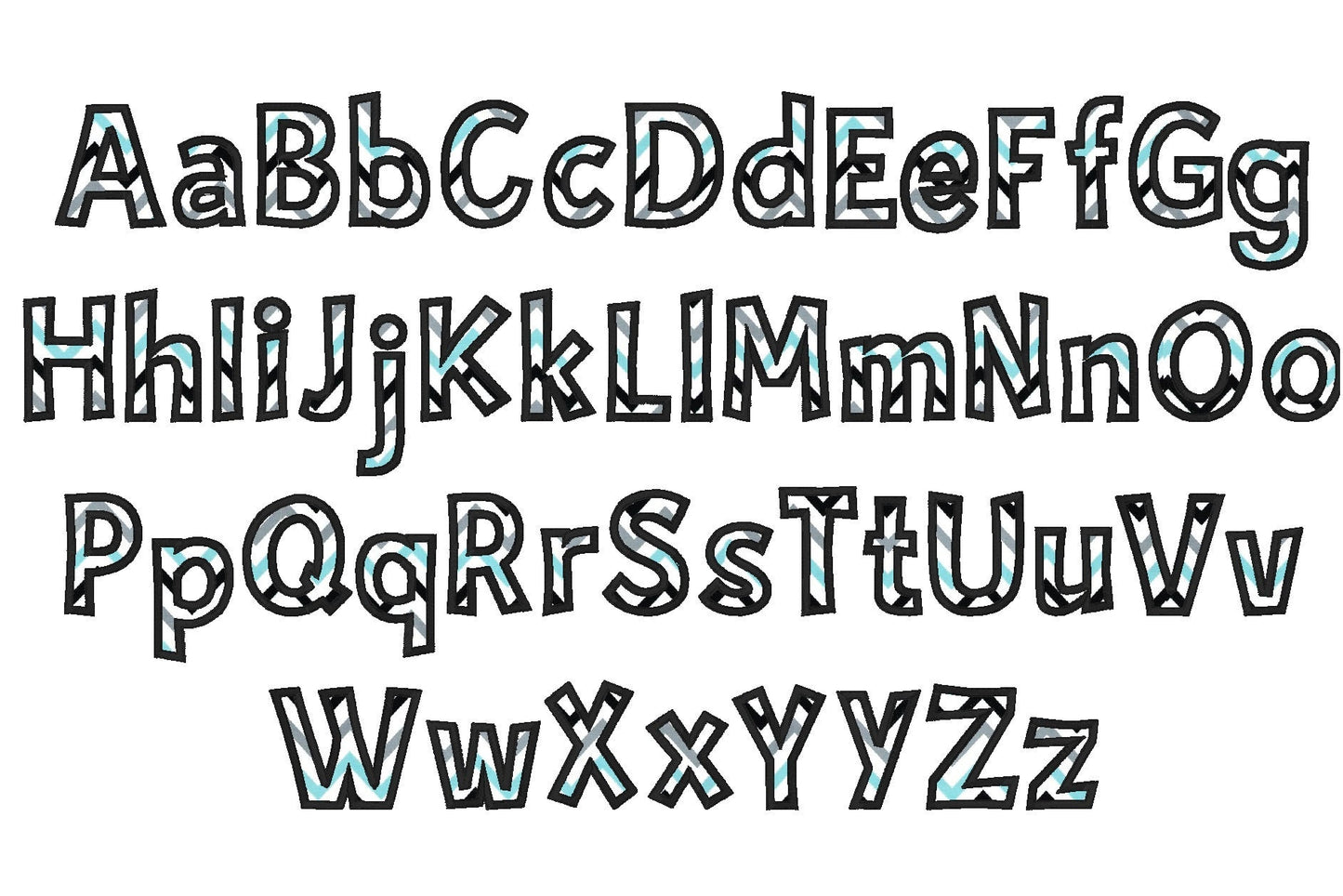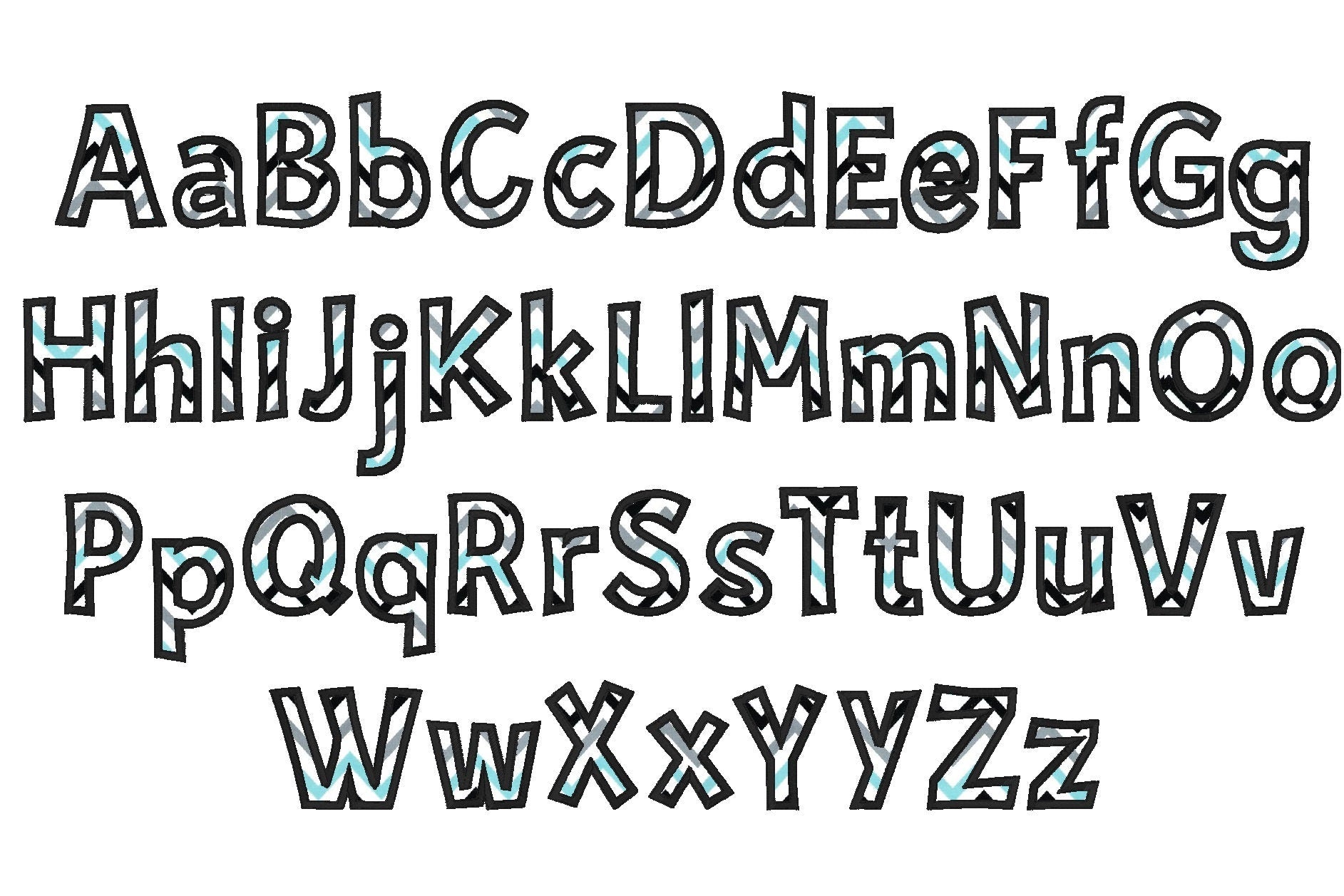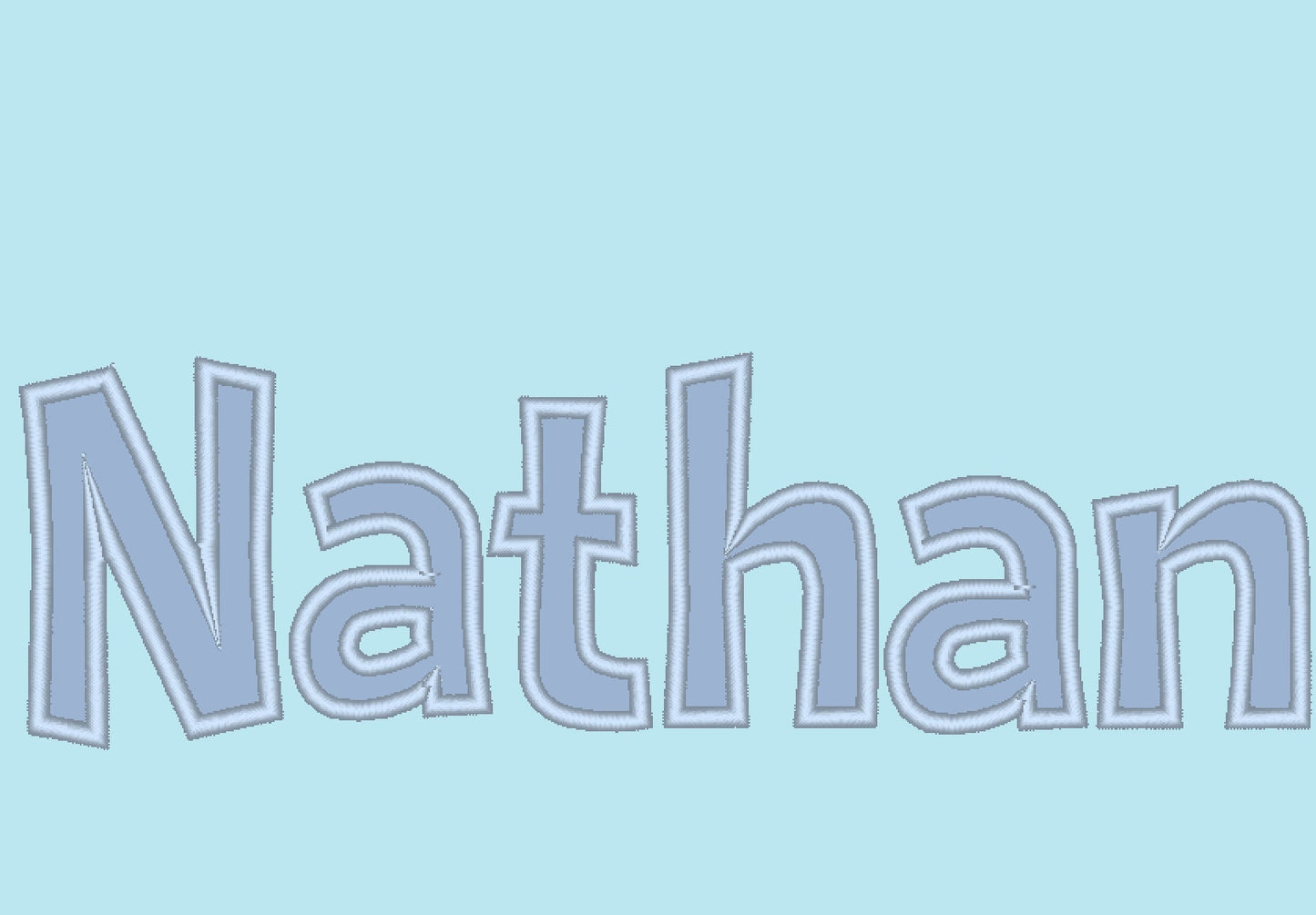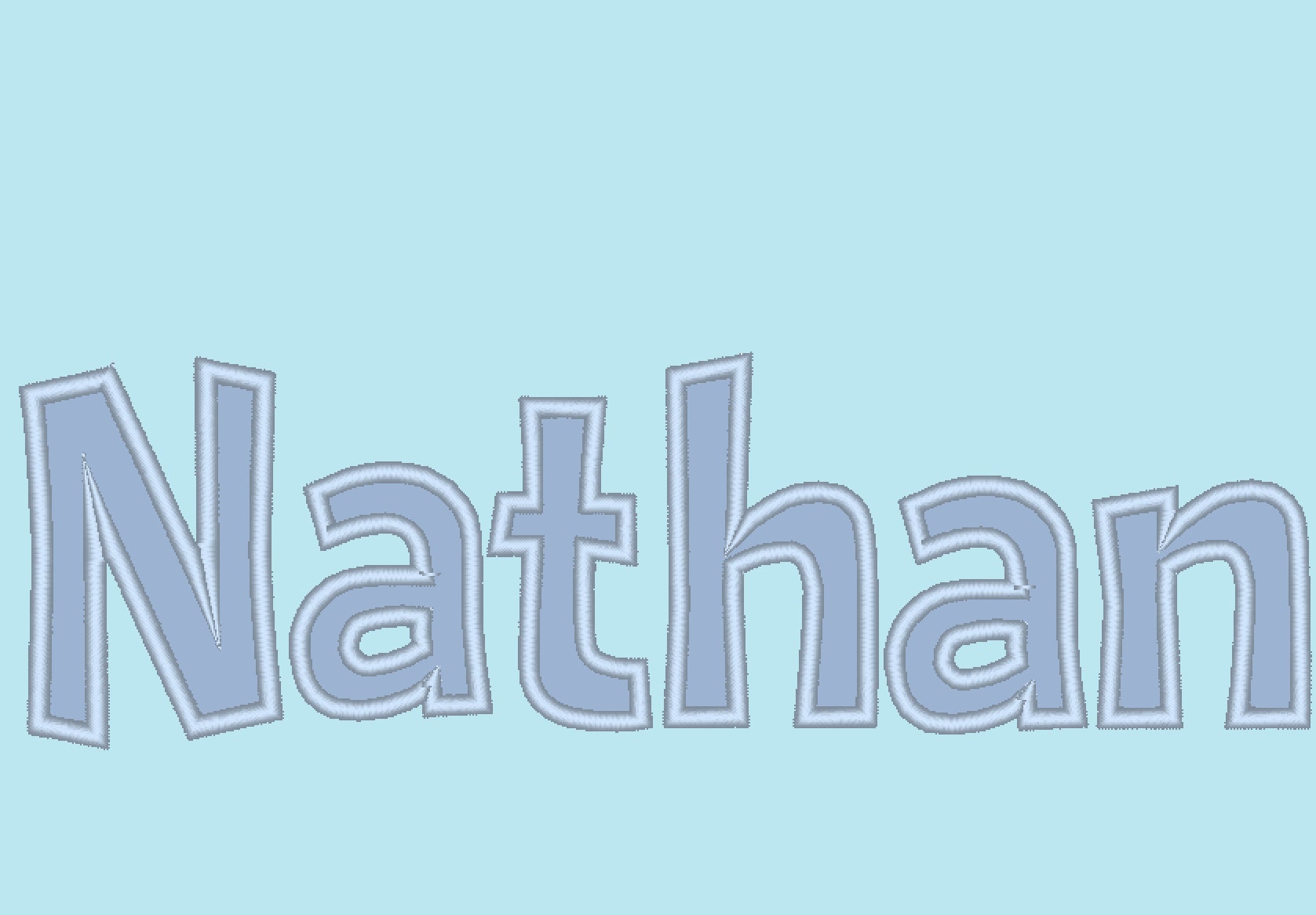
Satin Stitch Outline Font Nathan
Applique letters with a wide satin covering stitch. Uppercase and lowercase letters and punctuation in seven sizes: 1.6, 2, 2.4, 3, 3.3, 3.7 and 4.5 inches.
- Wide satin applique font
- Uppercase and lowercase letters, punctuation
- 7 sizes, 1.6 to 4.5 in